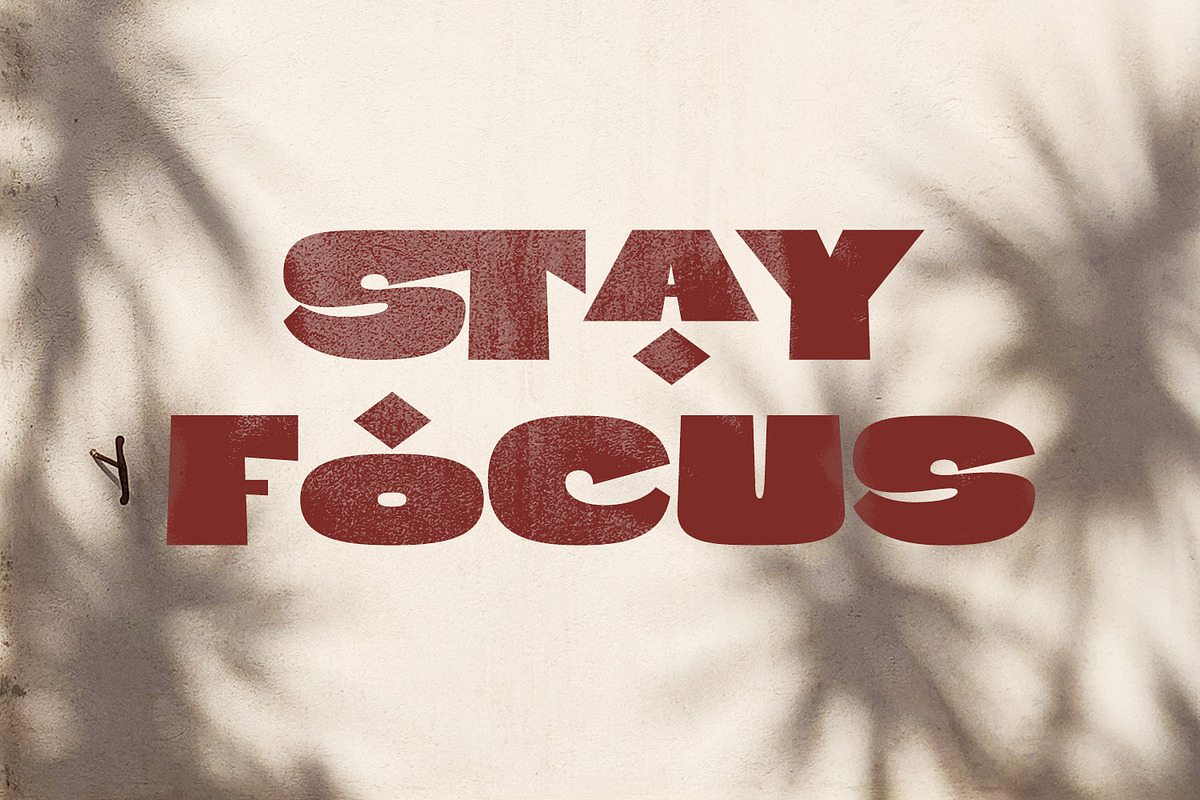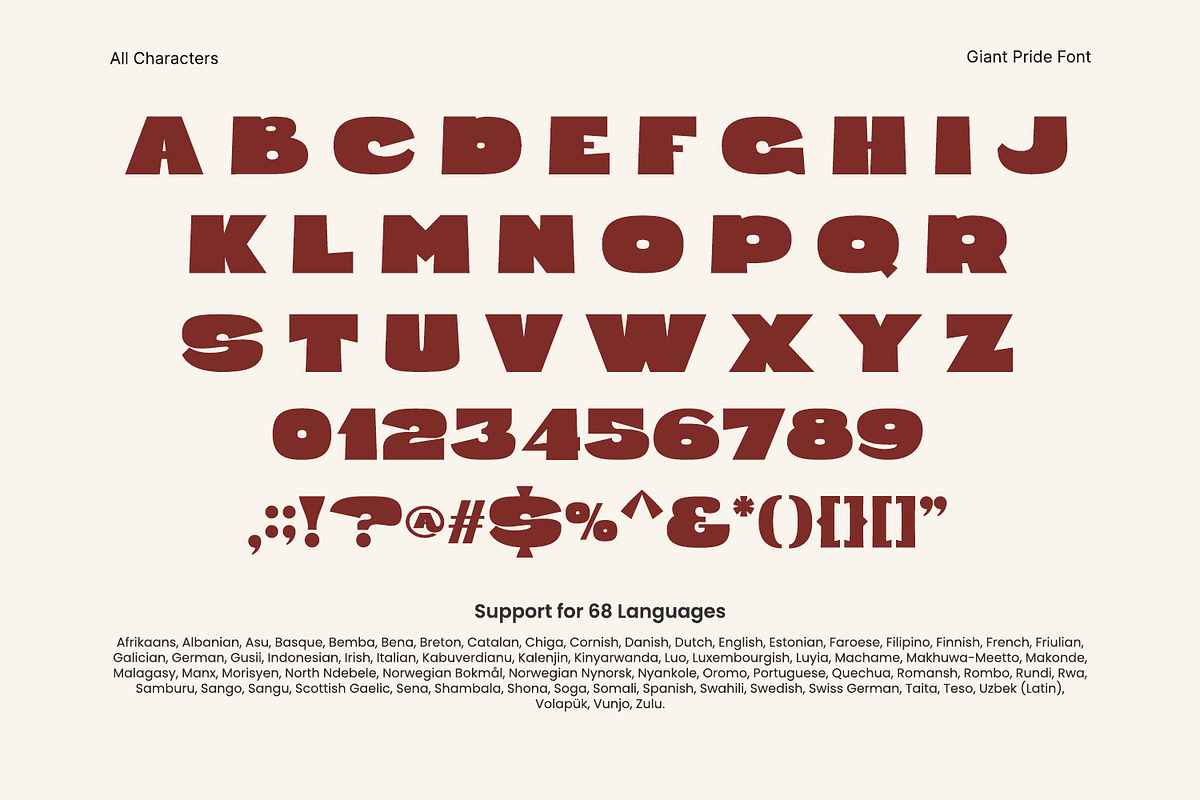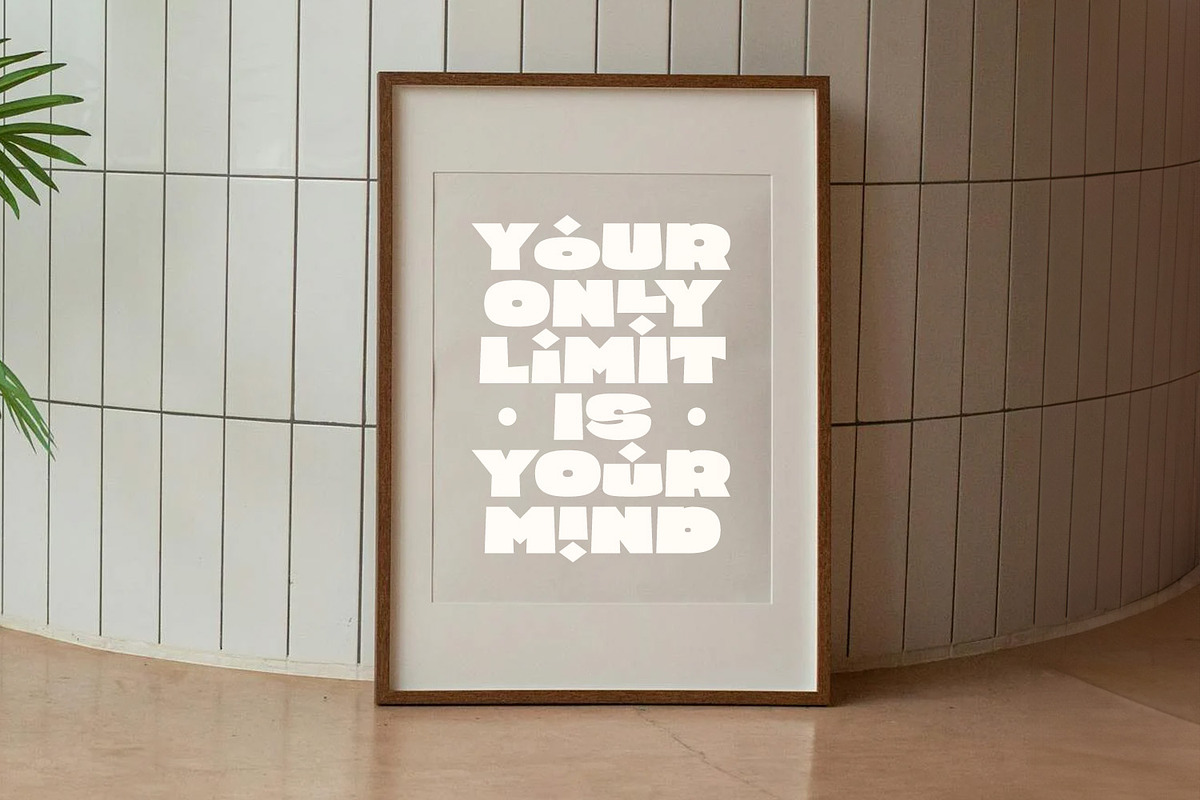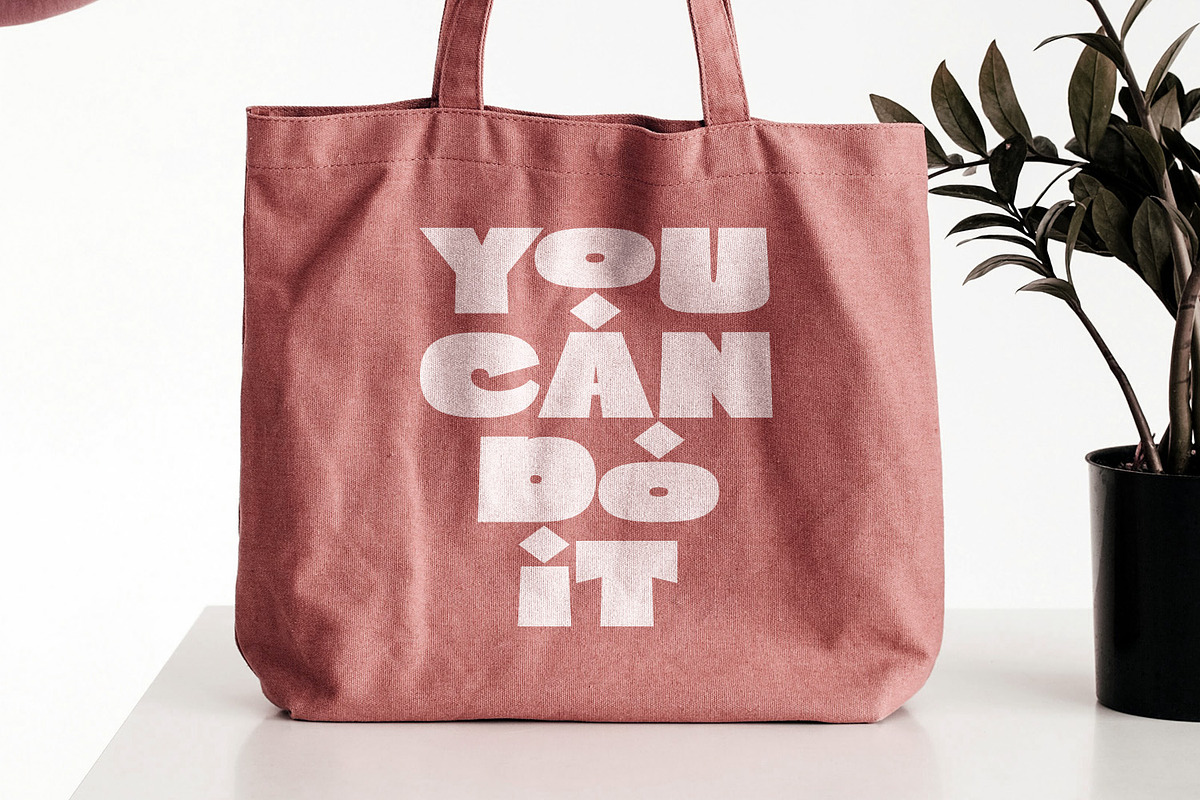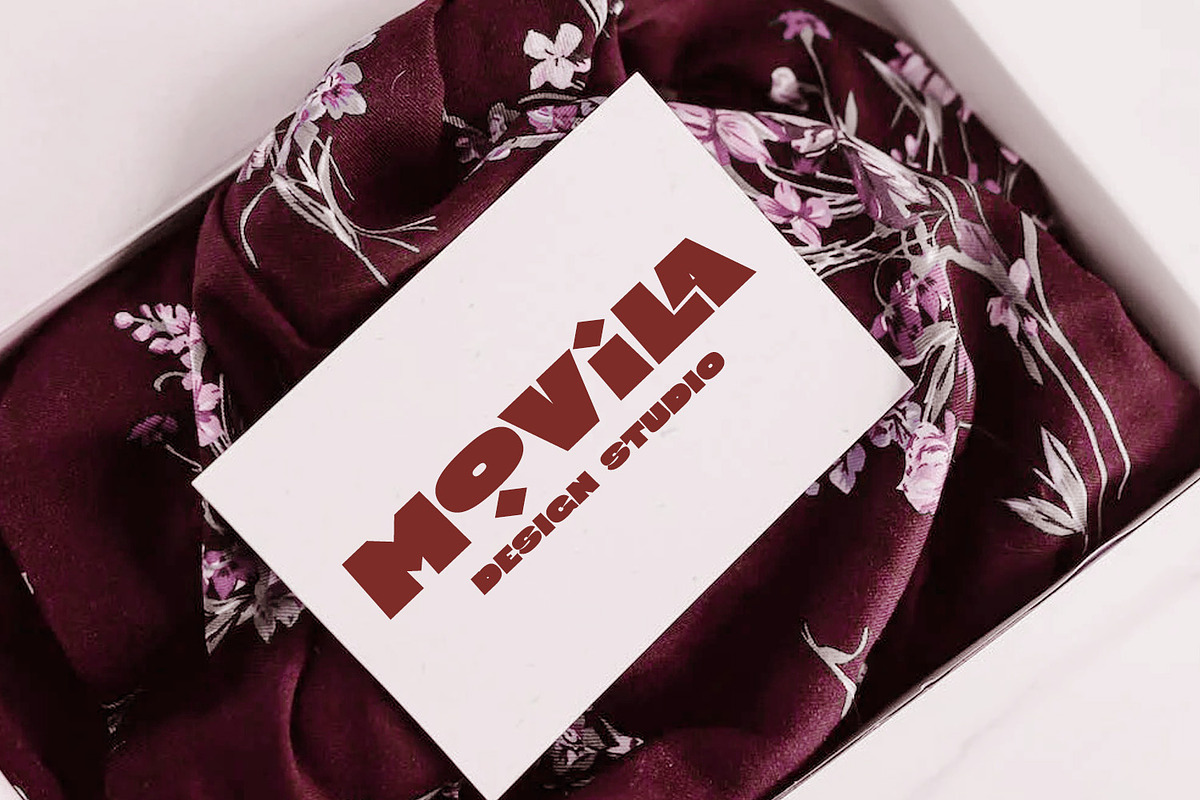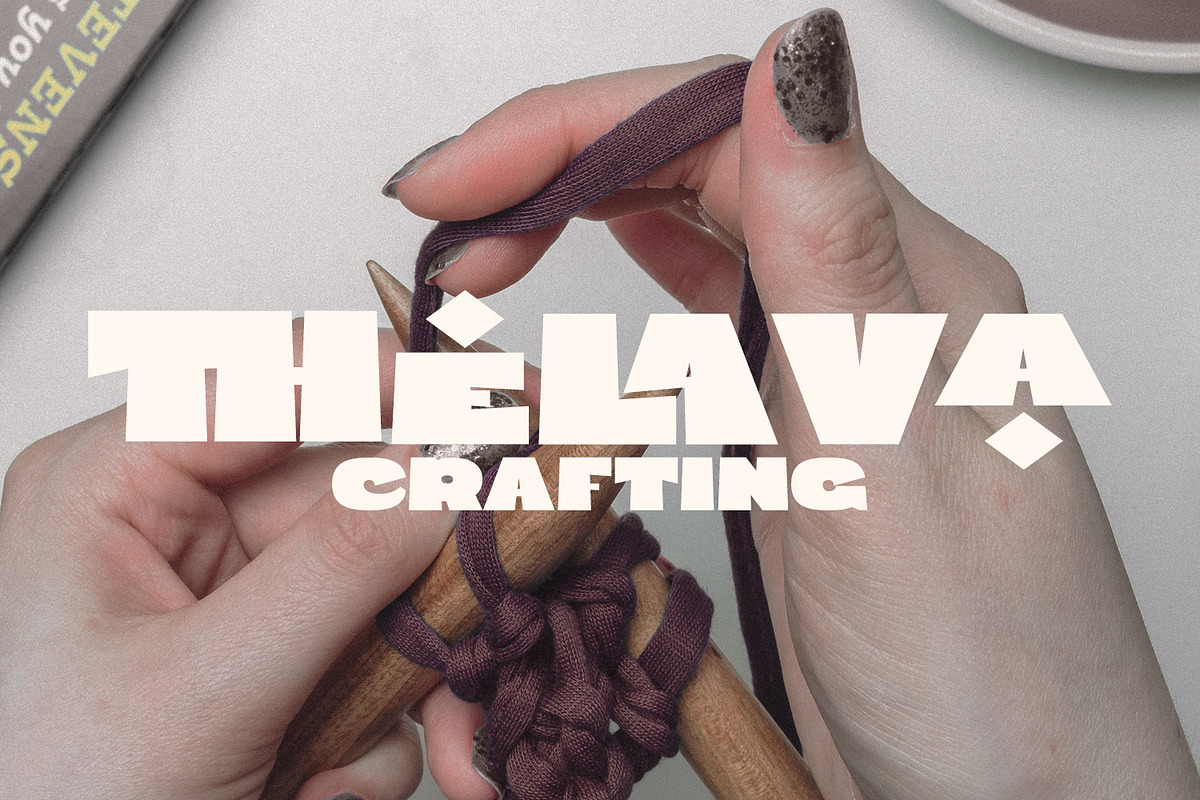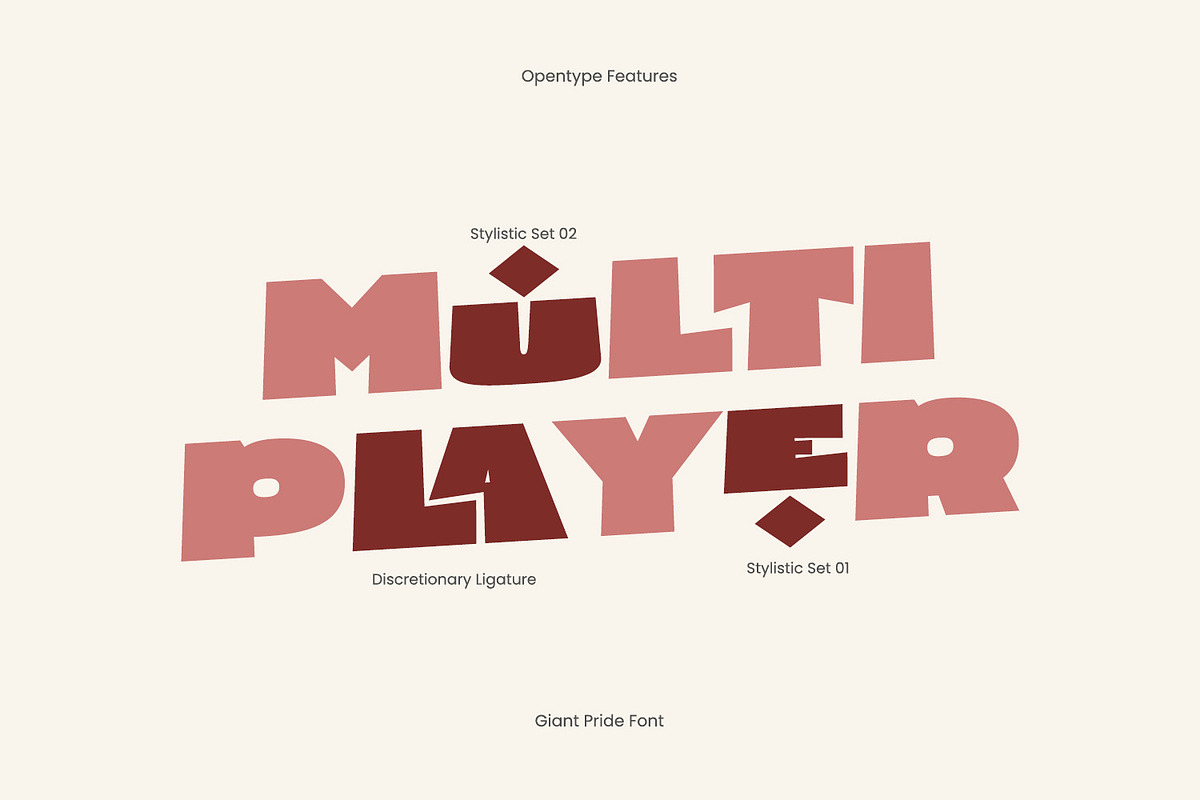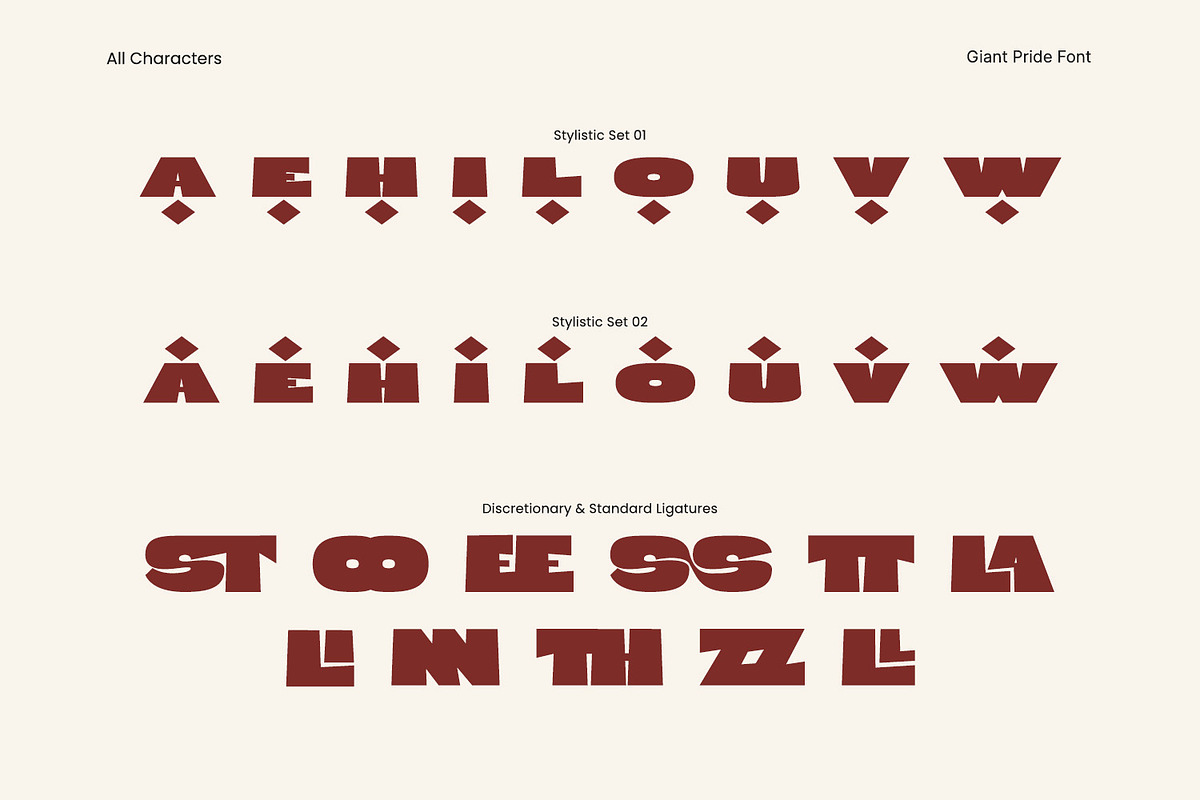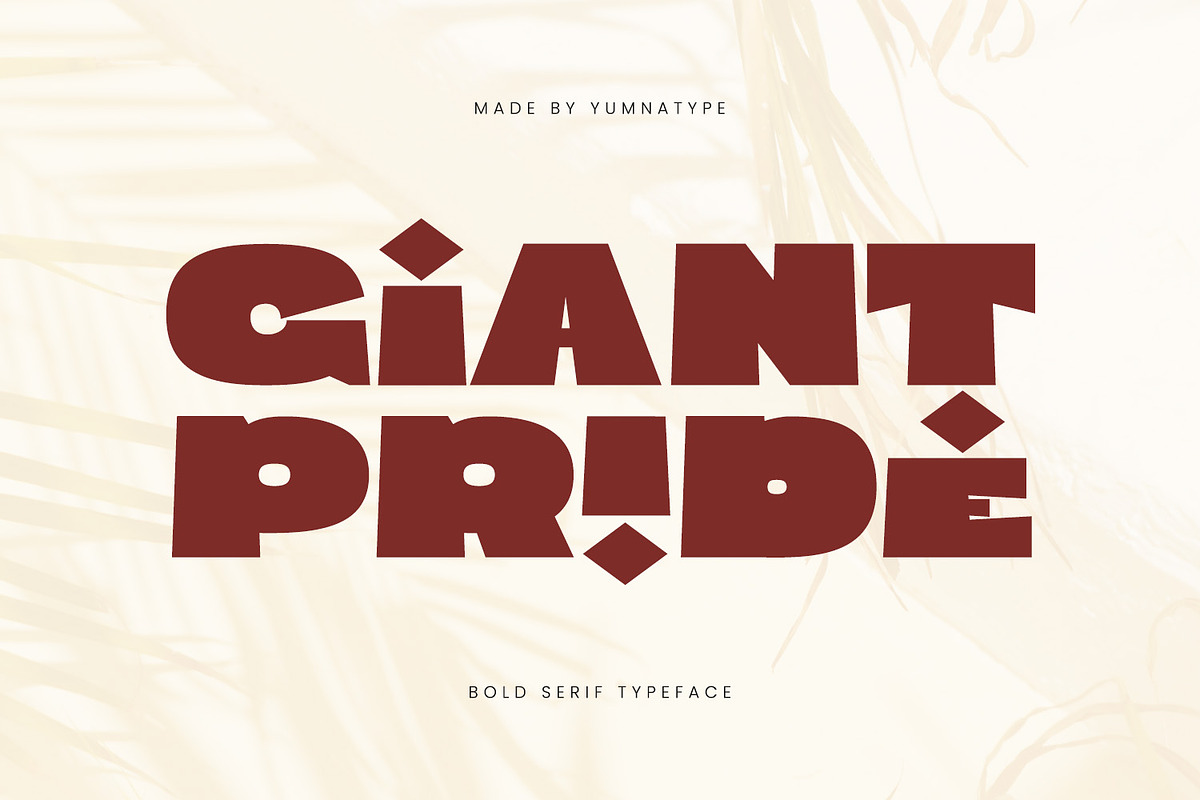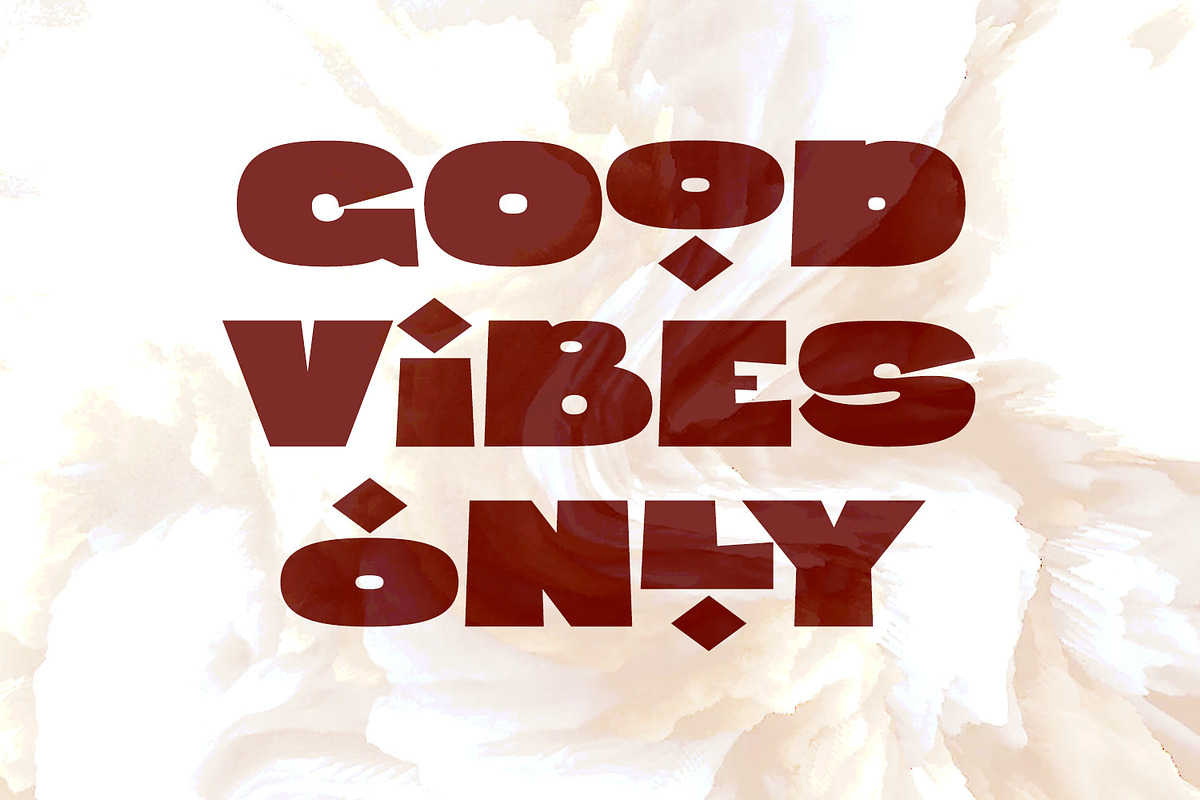
Giant Pride
Giant Pride is a serif font that commands attention with its larger-than-life letters and bold, thick weight. With a slightly playful style, this font exudes confidence and charisma, making it the perfect to demand a touch of personality and charm.
Crafted with meticulously designed letterforms, Giant Pride strikes the perfect balance between boldness and whimsy. Each letter boasts exaggerated proportions and thick strokes, giving it a sense of grandeur and presence that is impossible to ignore.
Despite its bold weight and larger size, Giant Pride maintains a sense of playfulness and approachability. The slightly rounded edges and playful details add a touch of warmth and character to the font. In addition, enjoy the features here.
- Stylistic Sets
Giant Pride fits in headlines, logos, posters, flyers, branding materials, greeting cards, print media, editorial layouts, and many more designs. Find out more ways to use this font by taking a look at the font preview.